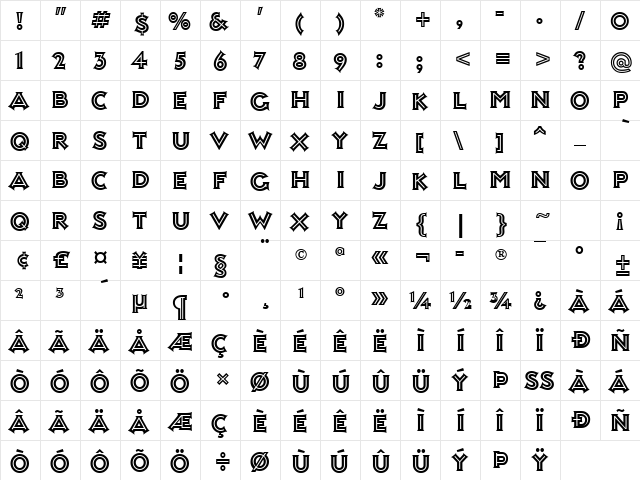
Ashley Inline Regular Font Preview
Ashley Inline Regular
Design Context for Ashley Inline Typeface
Ashley Inline brings ornamental detail and strong personality to headlines and identities, where visual impact matters more than quiet functionality.
Font Pairing: Pair with a clean neutral sans-serif for body copy to let Ashley Inline's character lead without overwhelming the composition.
Pro Tip: Treat Ashley Inline as the centrepiece of your typographic hierarchy. One strong heading set in a decorative face can carry an entire layout.